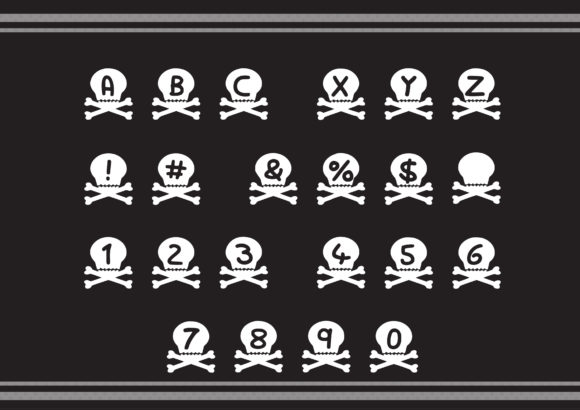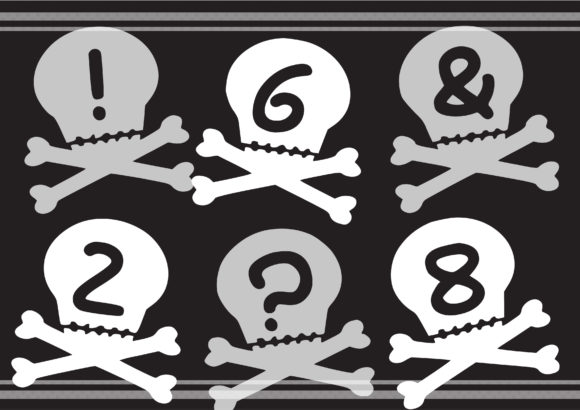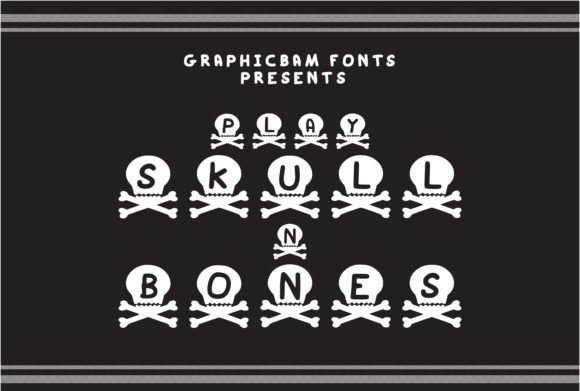
Introduction to Play Skull N Bones Font
A little bit spooky and a lot of fun, Play Skull N Bones is the best decorative font to use for Halloween or other bold creative ideas.
A little bit spooky and a lot of fun, Play Skull N Bones is the best decorative font to use for Halloween or other bold creative ideas!
Why Choose Play Skull N Bones Font?
Play Skull N Bones Font offers exceptional quality and versatility, making it a valuable addition to your design toolkit. Whether you’re creating for personal projects or commercial use, Play Skull N Bones Font delivers professional results.